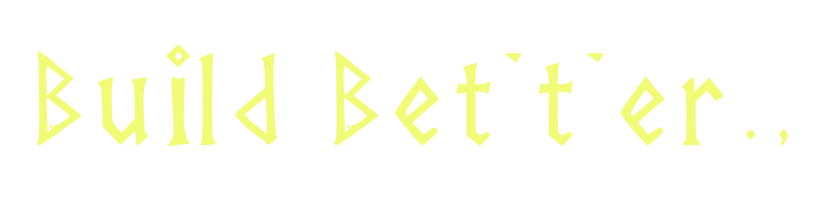
Kraggur
About Kraggur
Angular runic fantasy display font with sharp carved strokes
Kraggur held its shape in our poster comps and still felt distinct in small lockups.
The spacing and proportions landed fast. It gave the concept a finished look without extra tuning.
Great personality, strong readability, and easy to drop into campaign mockups.
The texture has enough bite for headlines while staying clean on packaging panels.
It made the title treatment feel custom right away. The numbers and caps were especially useful.
I used it across badges, social tiles, and a landing page header. It stayed consistent everywhere.